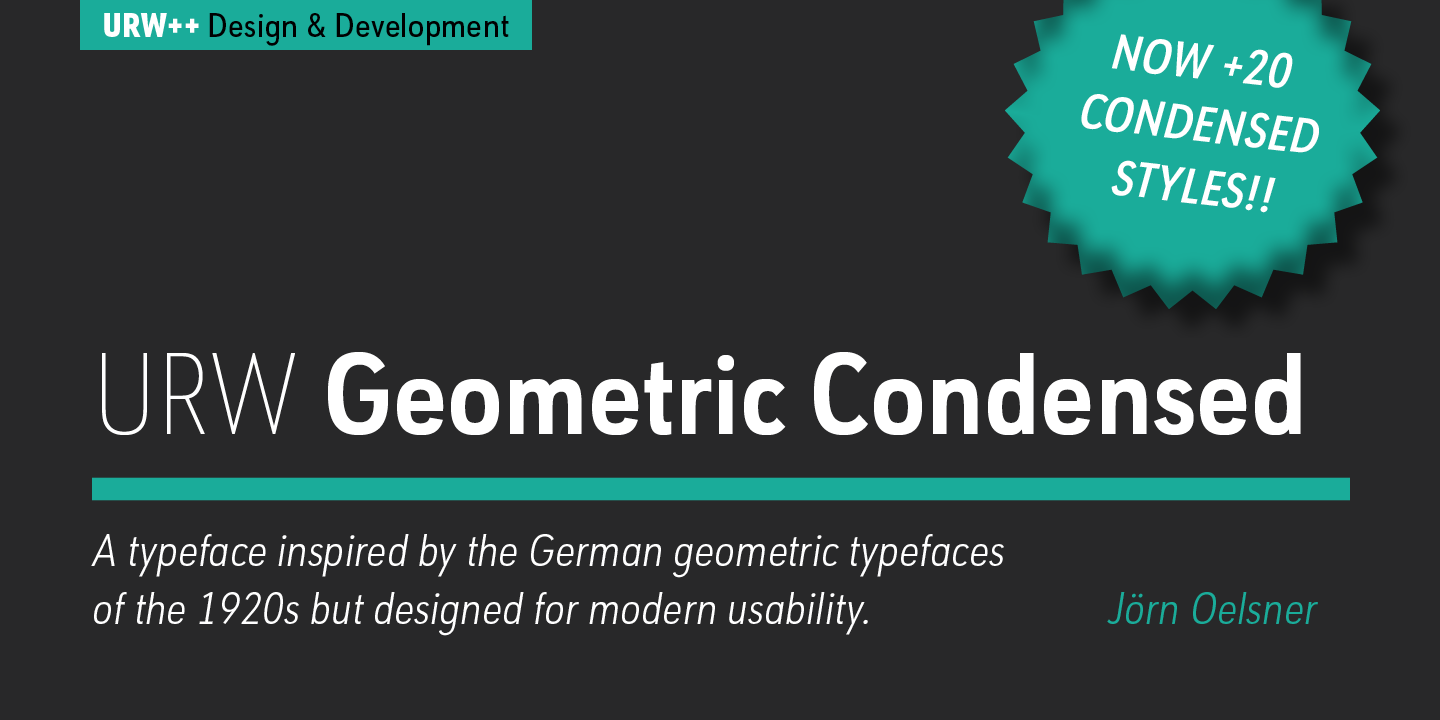
The URW Geometric Condensed Font is ideal for space-efficient layouts, narrow column designs, tall poster headlines, mobile app interfaces, architectural presentations, modern magazine mastheads, corporate annual reports, and contemporary branding projects requiring maximum impact in minimal horizontal space.
What makes the URW Geometric Condensed Font Free Download so exciting is its masterful balance between geometric precision and space optimization without sacrificing readability. This typeface combines the clean aesthetics of Bauhaus design principles with practical condensed proportions, creating a sophisticated solution for modern design challenges. Its tall, narrow letterforms maintain exceptional clarity while maximizing vertical impact, making it perfect for contemporary layouts that demand both style and functionality.
The URW Geometric Condensed Font family encompasses multiple weights from Thin to Black, each maintaining the font's signature condensed proportions and geometric character. The collection features Light, Regular, Medium, Semibold, Bold, and Heavy variants, with corresponding italic styles available. This comprehensive font system provides designers with complete flexibility for creating striking typographic hierarchies in space-constrained environments.
Essential for editorial designers, corporate communications teams, app developers, and creative agencies working on modern visual identities. The font's space-saving efficiency makes it invaluable for responsive web design, mobile applications, and print layouts requiring maximum content density. Download URW Geometric Condensed Font Free Download today and discover how this exceptional typeface transforms challenging space limitations into elegant design opportunities with geometric sophistication.